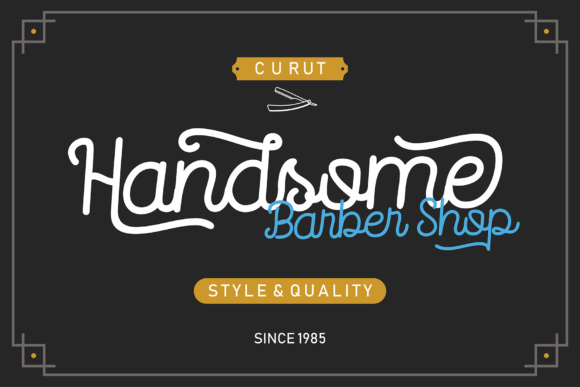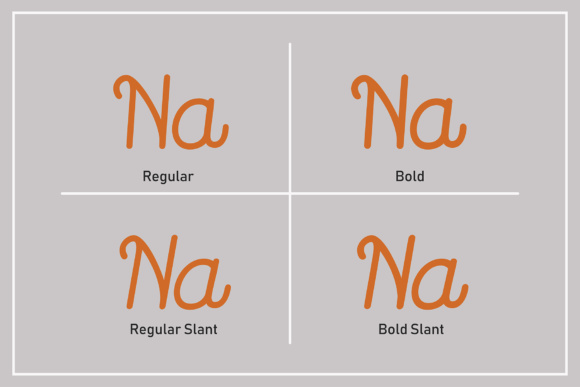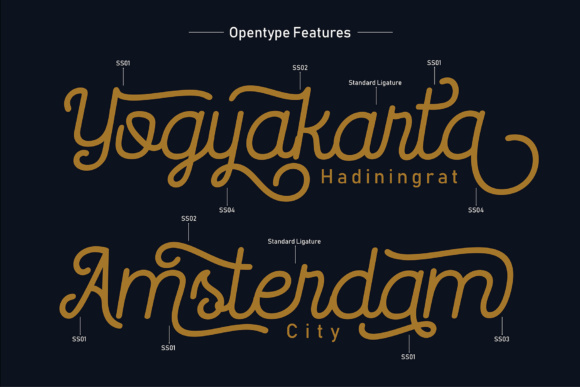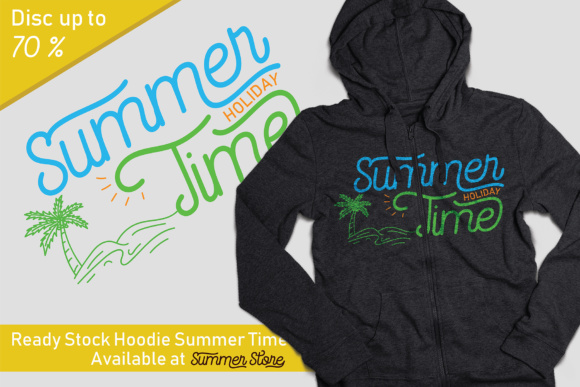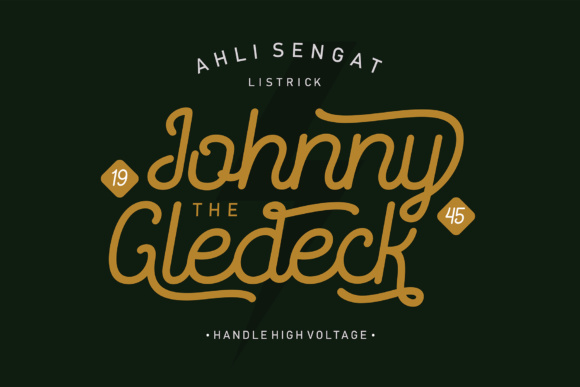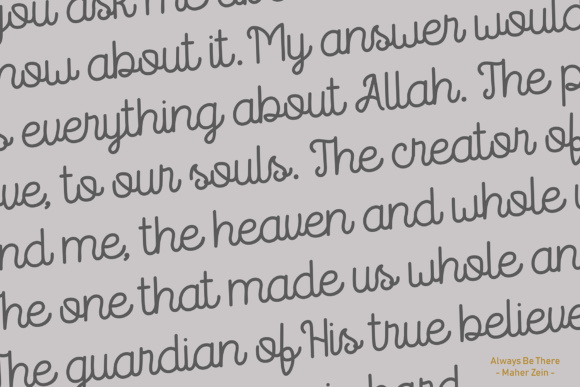
Introduction to Routerline Font
Routerline is a script monoline which comes in 4 styles.
Routerline can be applied perfectly on various products such as: clothing designs, vintage logos, labels, posters, packaging designs and much more .
Key Features of Routerline Font
Why Choose Routerline Font?
Routerline Font offers exceptional quality and versatility, making it a valuable addition to your design toolkit. Whether you’re creating for personal projects or commercial use, Routerline Font delivers professional results.